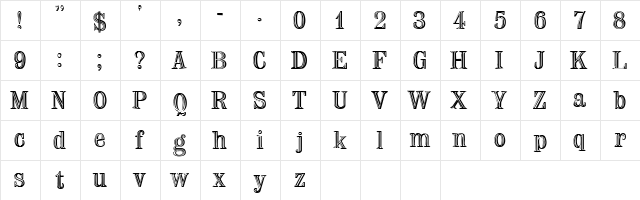
Nauert Plain
Design Context for Nauert Typeface
Nauert is a composed and adaptable typeface that performs quietly and consistently across a wide range of design contexts.